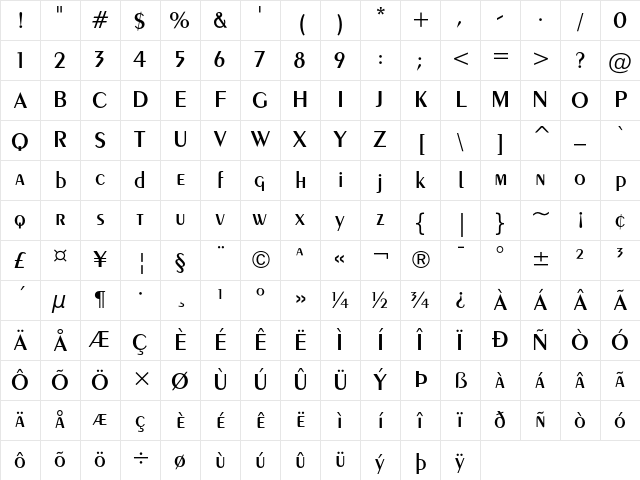
Exotic 350 Demi-Bold
Style: Demi-Bold
Complete Exotic 350 Demi-Bold glyph index. Displaying only characters natively supported by Exotic 350 Demi-Bold font.
Design Context for Exotic 350
Exotic 350 is a composed and adaptable typeface that performs quietly and consistently across a wide range of design contexts. Its bold stroke weight gives it real presence on the page.